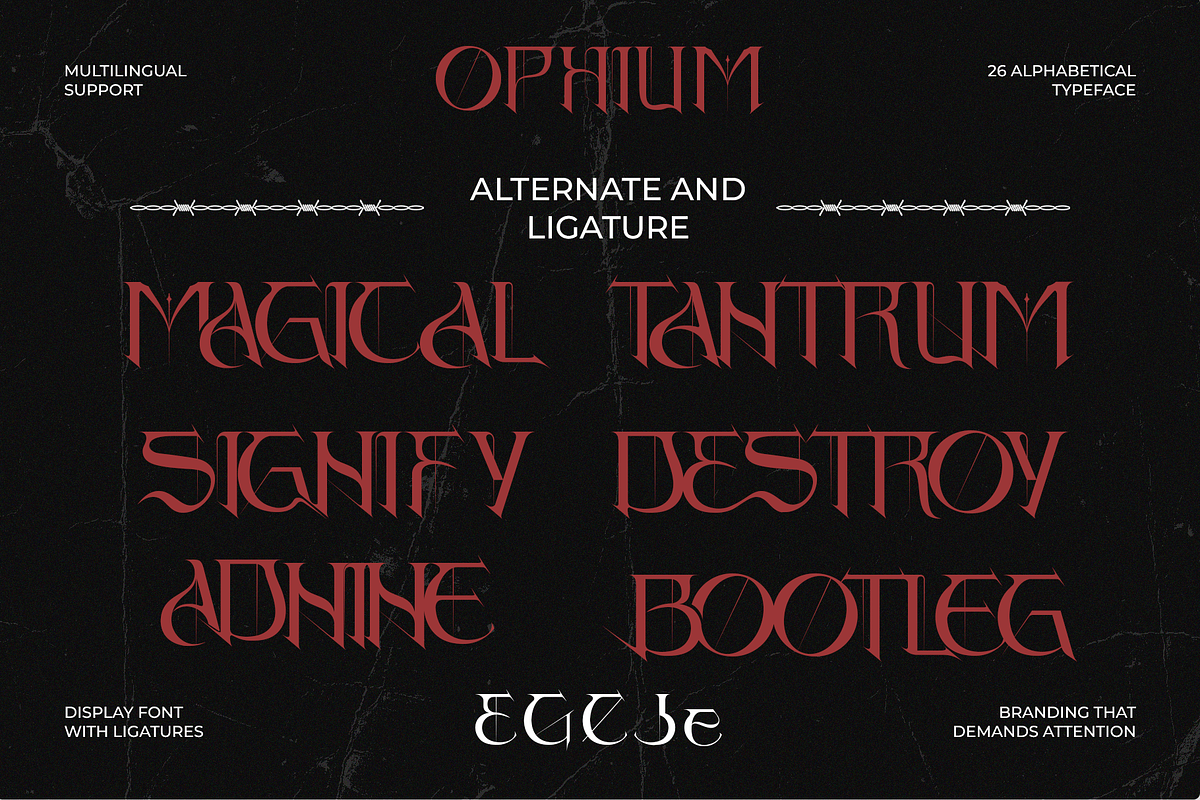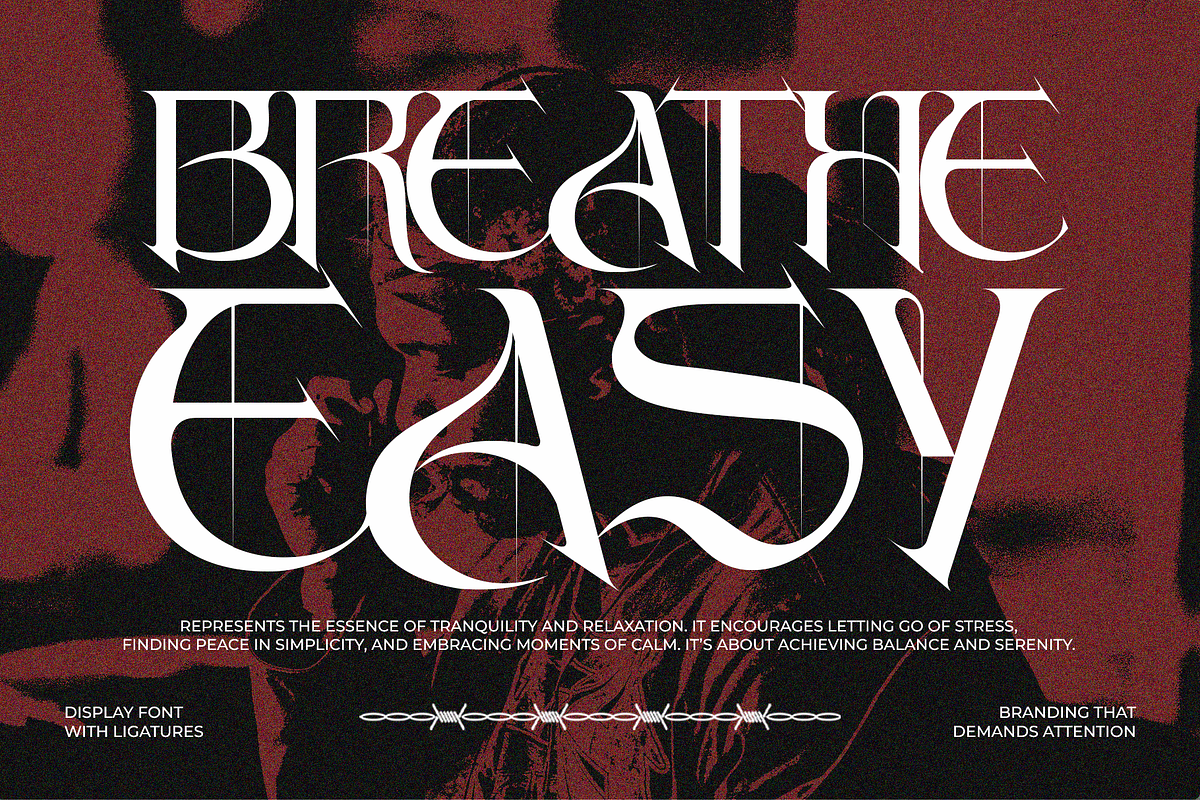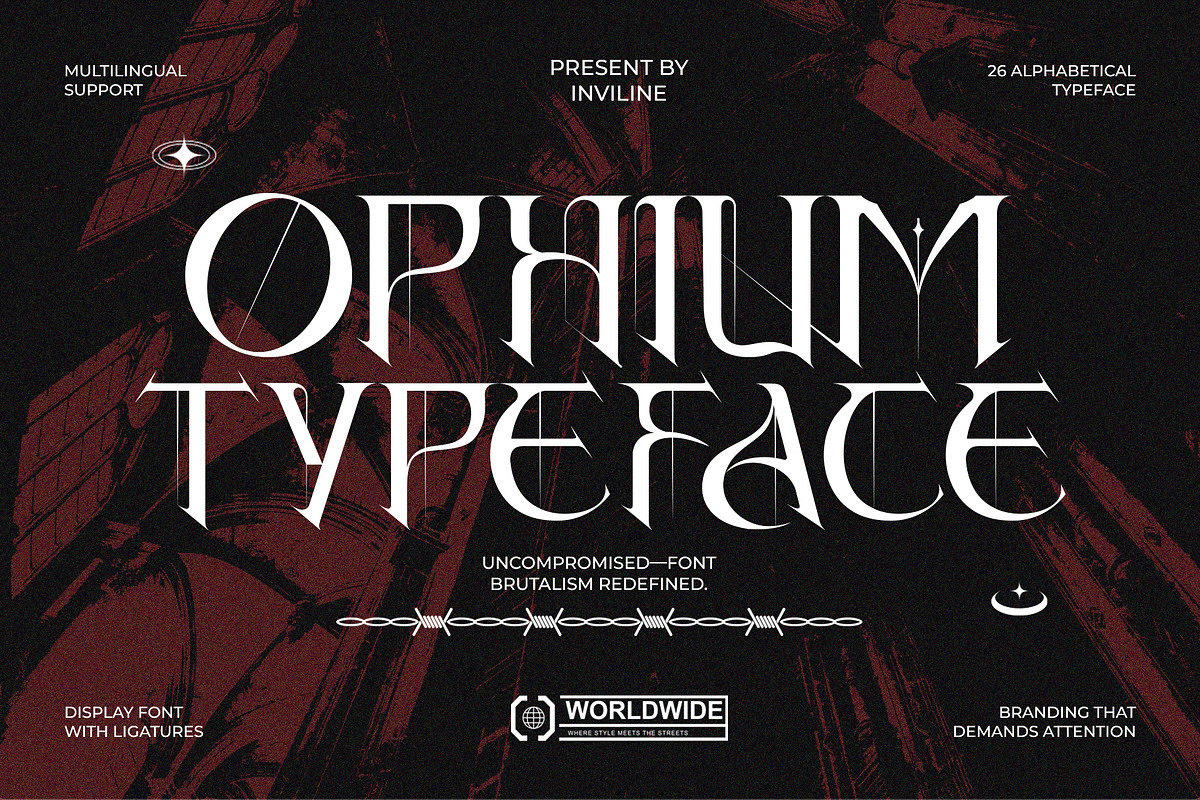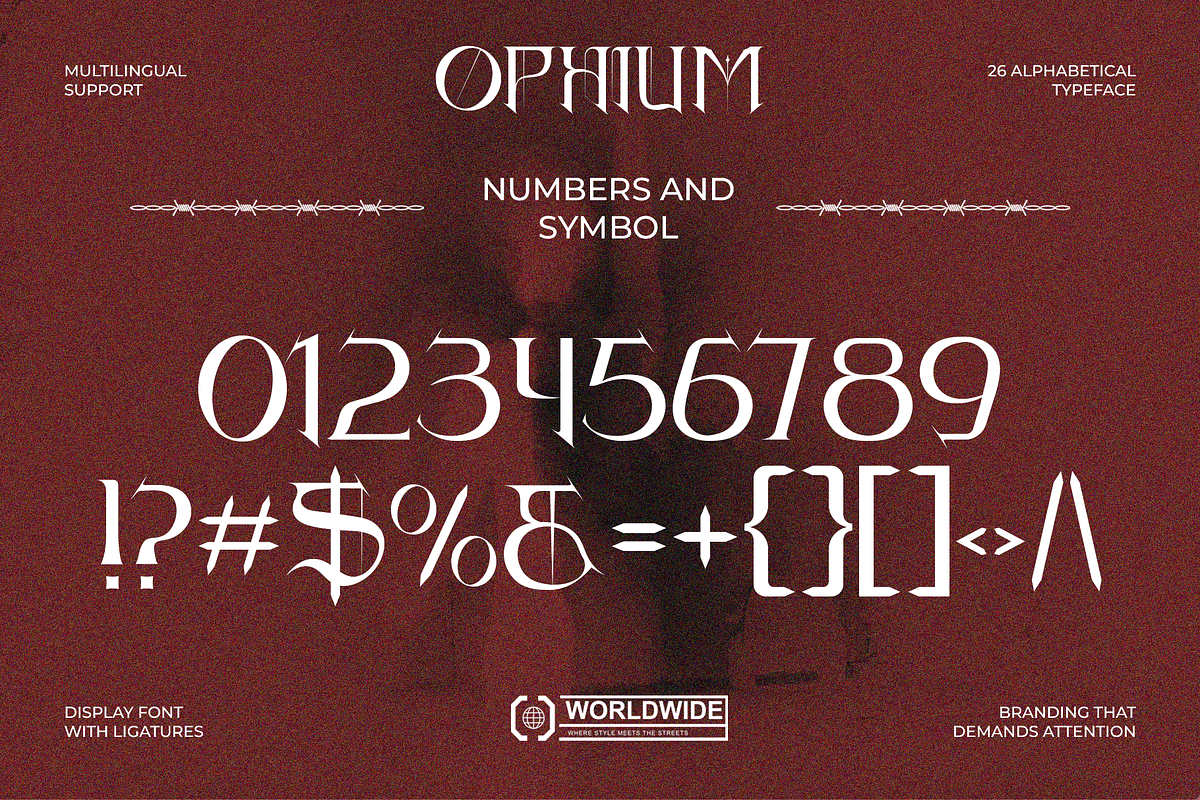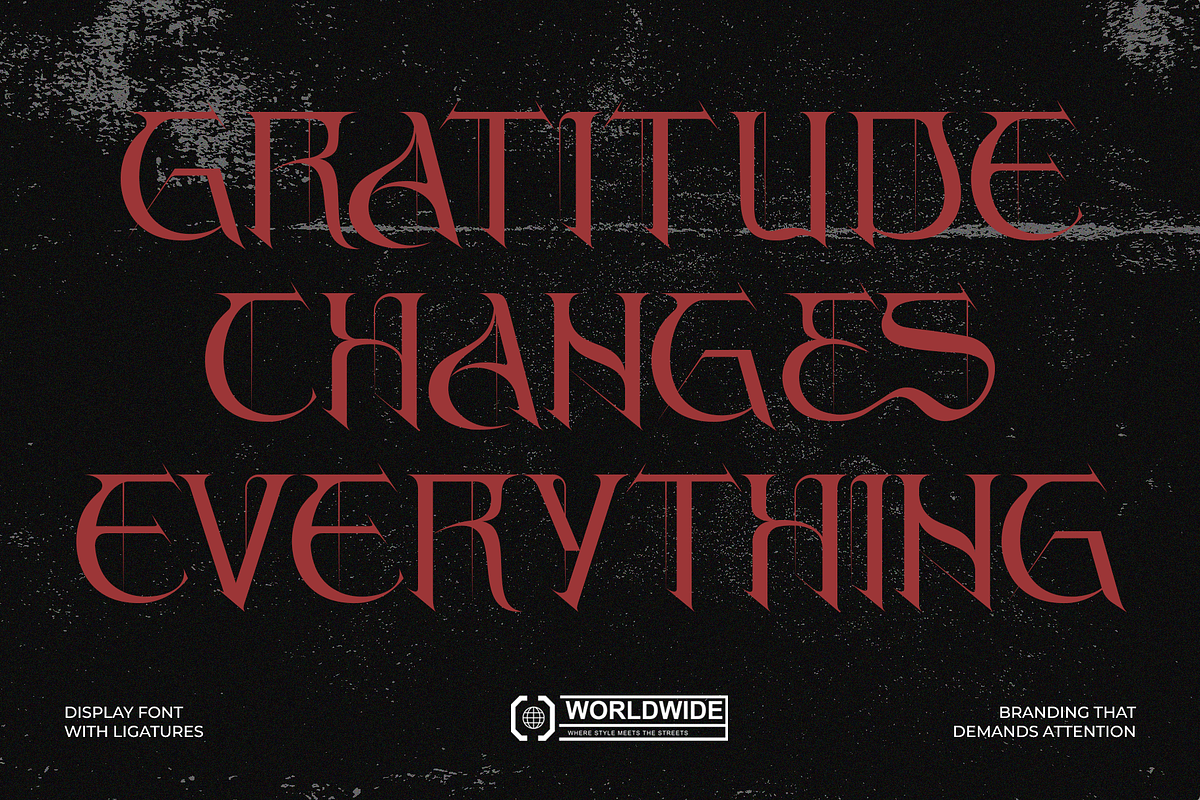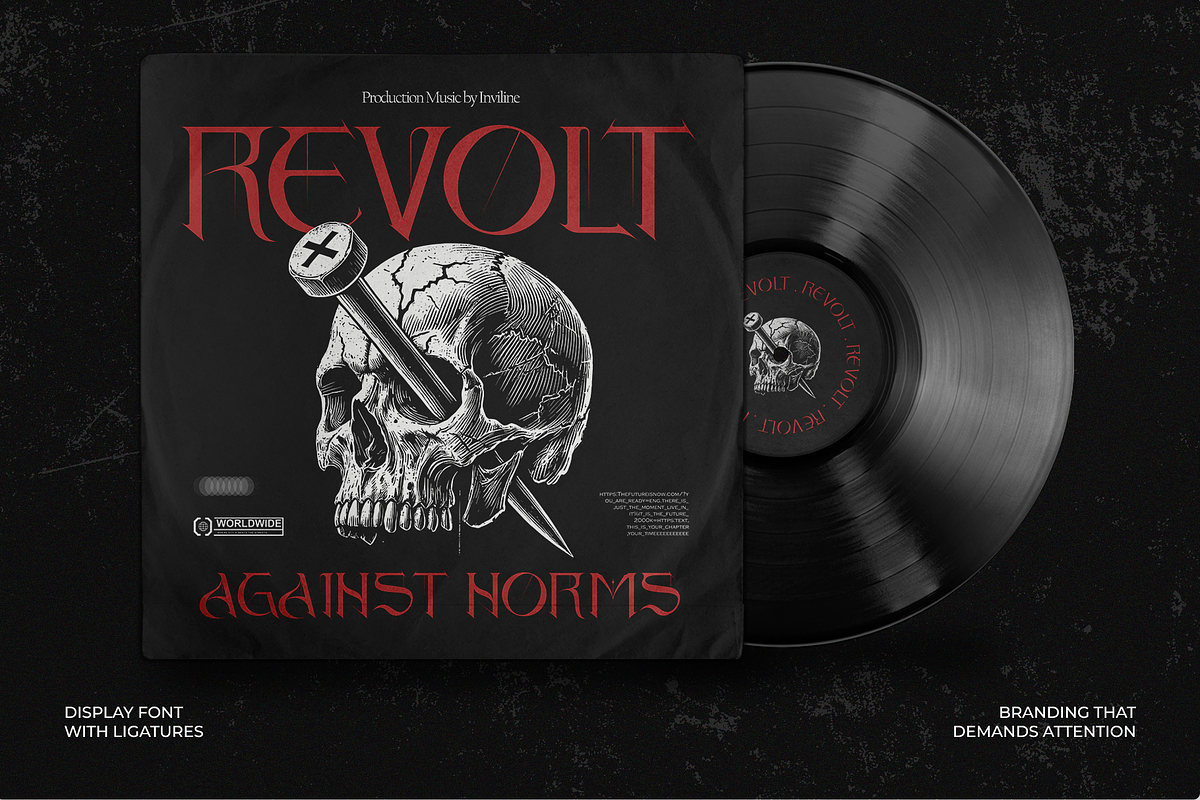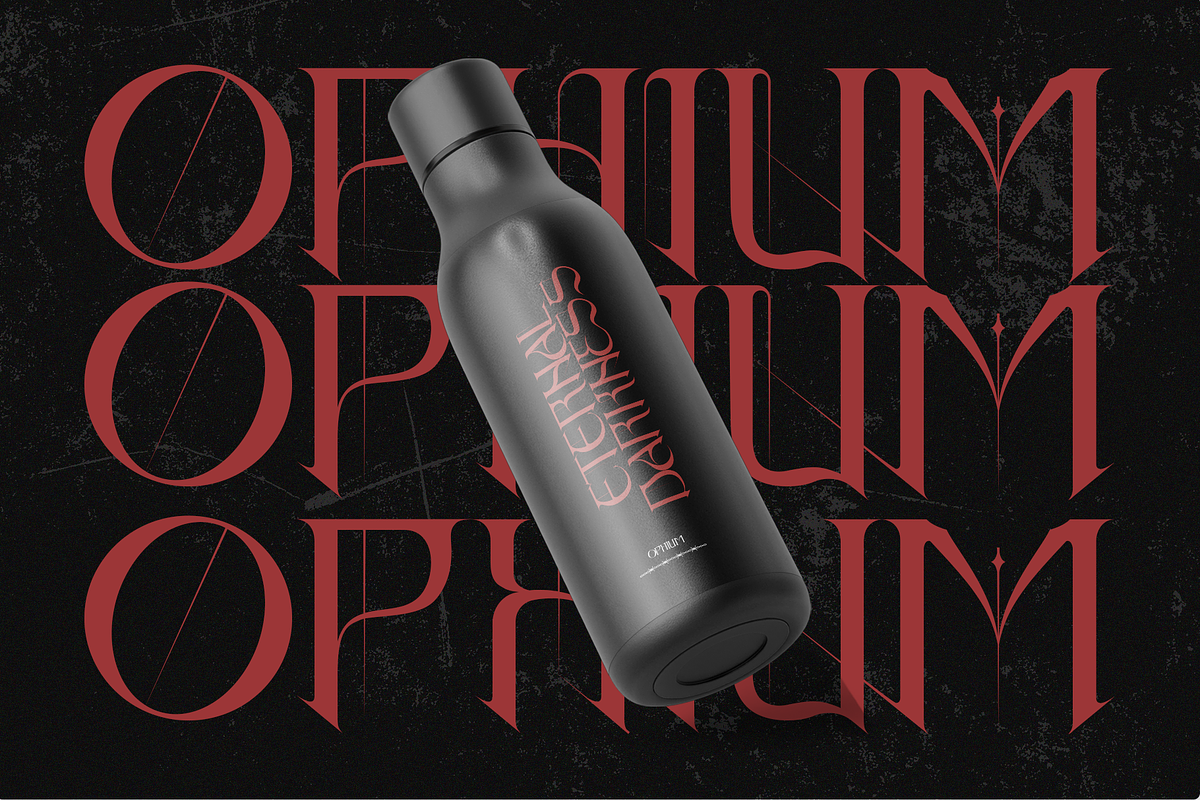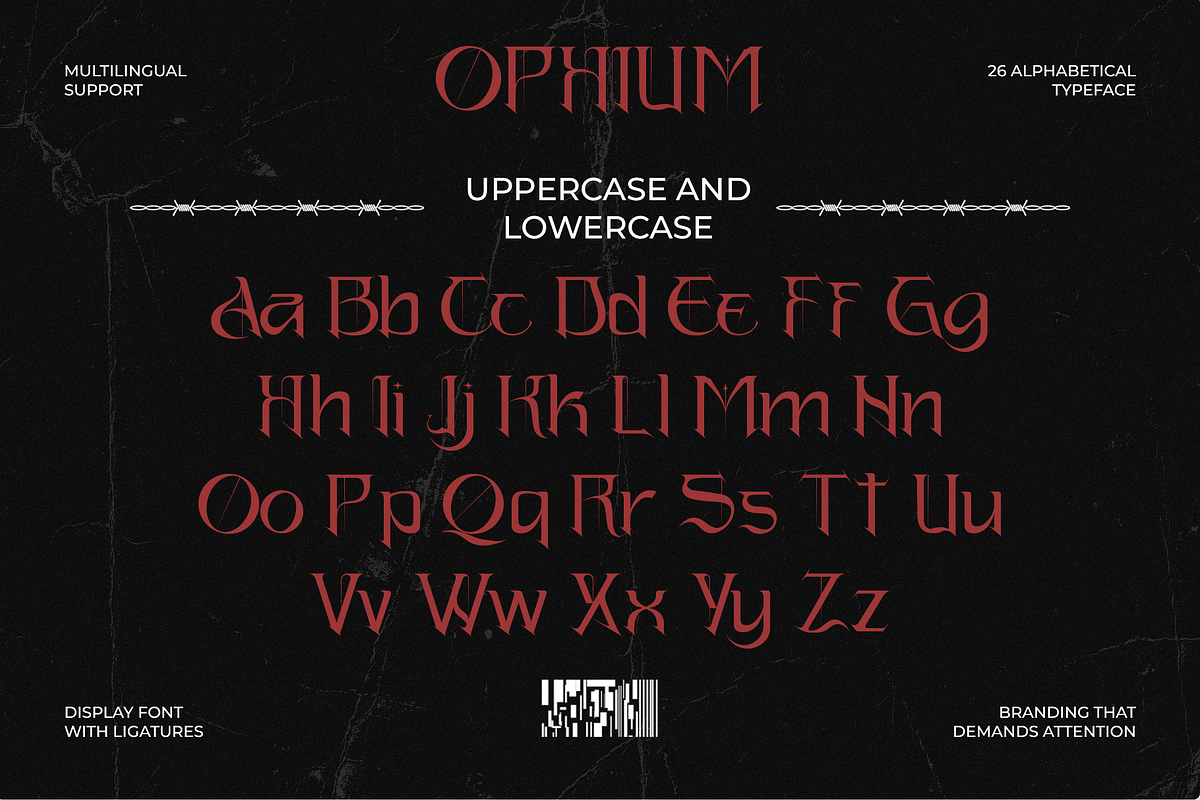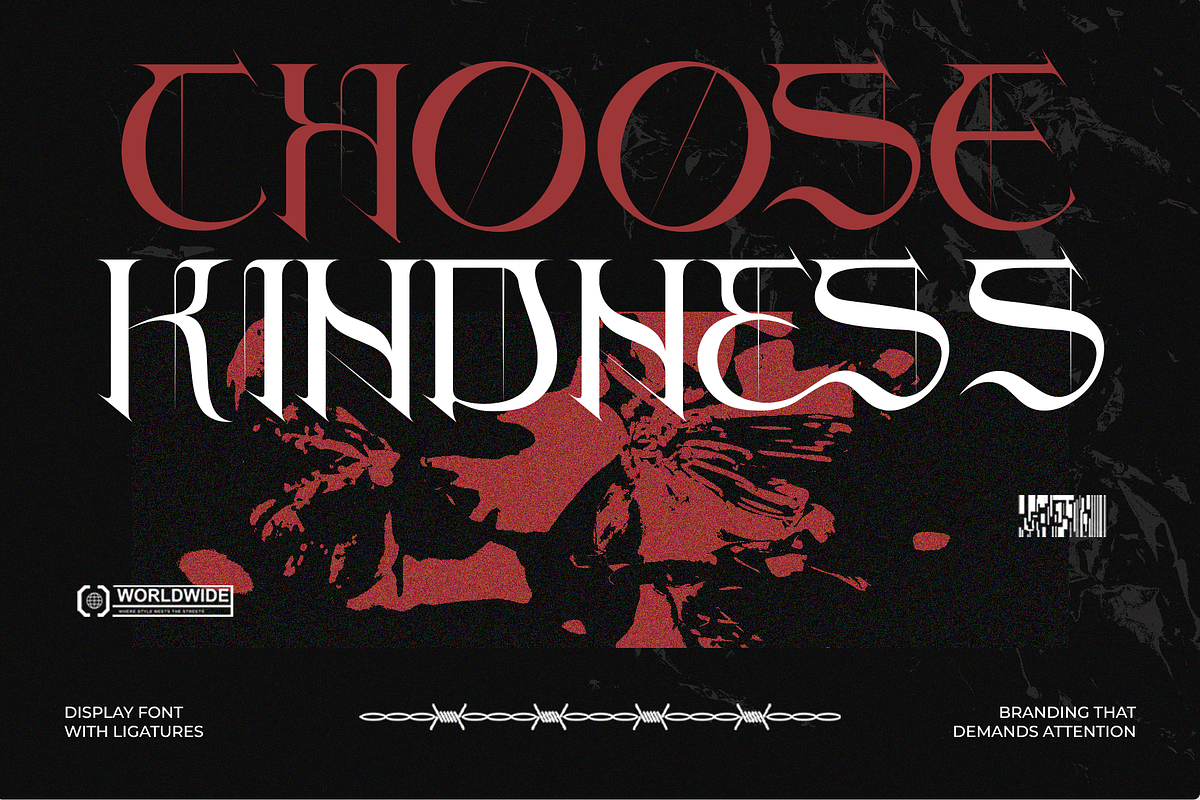
Ophium - Modern Gothic Font
Ophium - Modern Gothic Typeface
Bring a touch of Gothic to your designs with this meticulously crafted font collection. Perfect for adding a Elegance-Dark vibes to your branding, packaging, logos, and more.
- Uppercase & Lowercase Characters: Fully designed for a complete typographic experience
- Numerals & Punctuation: All the numbers and punctuation marks you need for any design task
- Multilingual Support: Includes characters for multiple languages, ensuring global usability
- High-Quality Design: Each font is crafted with attention to detail, ensuring a polished and professional look